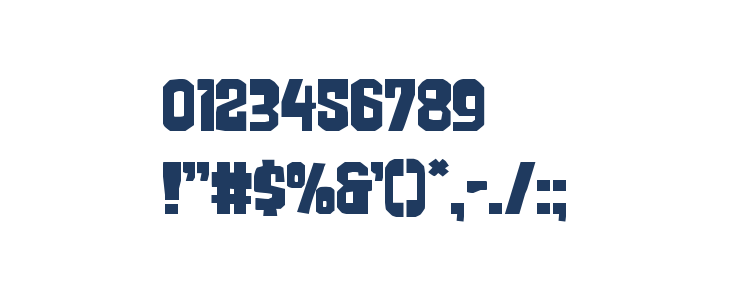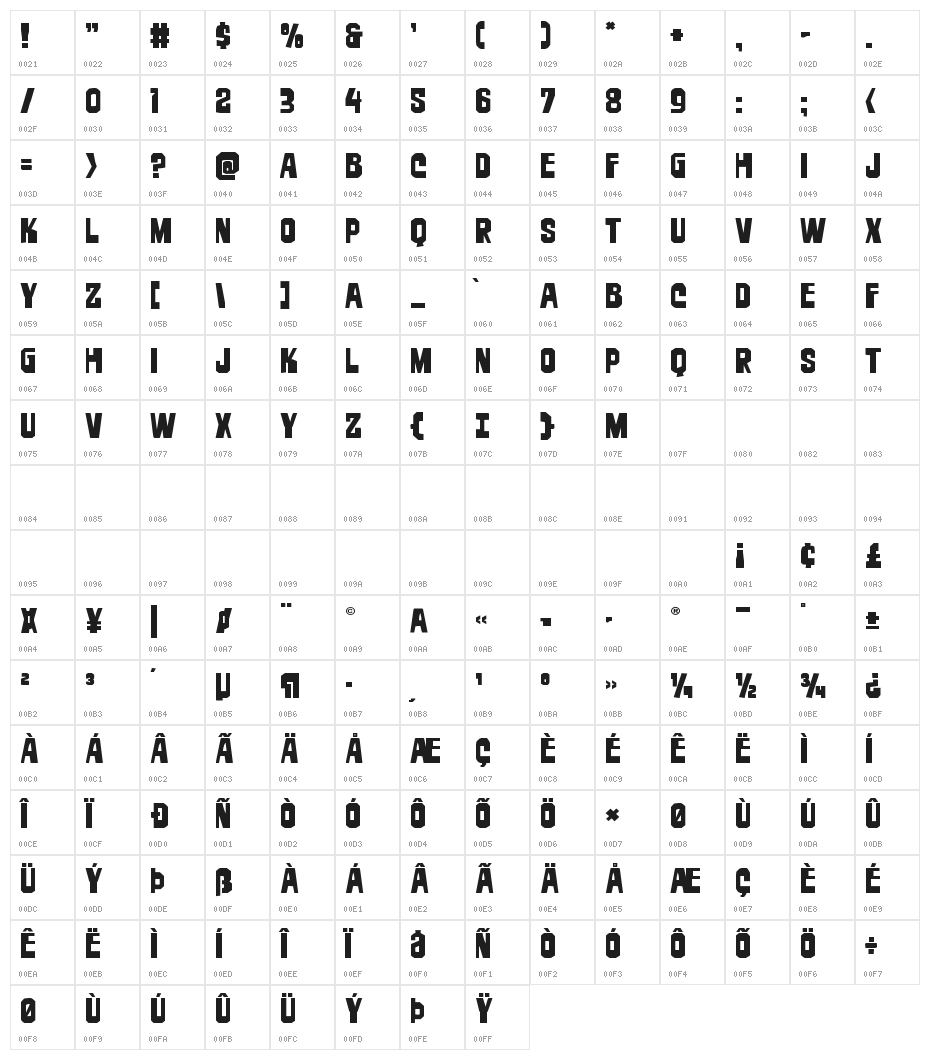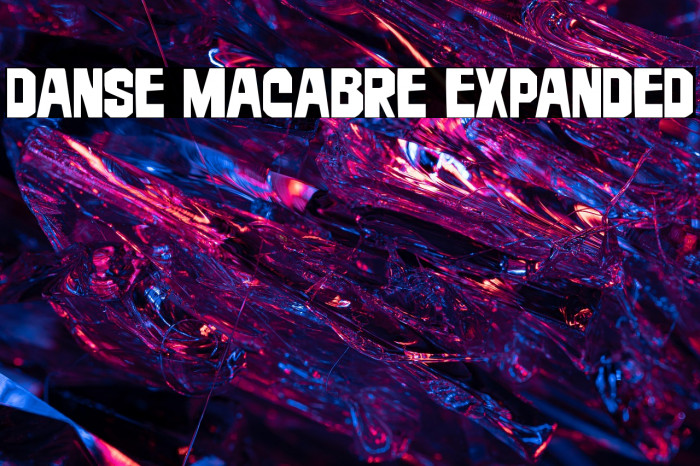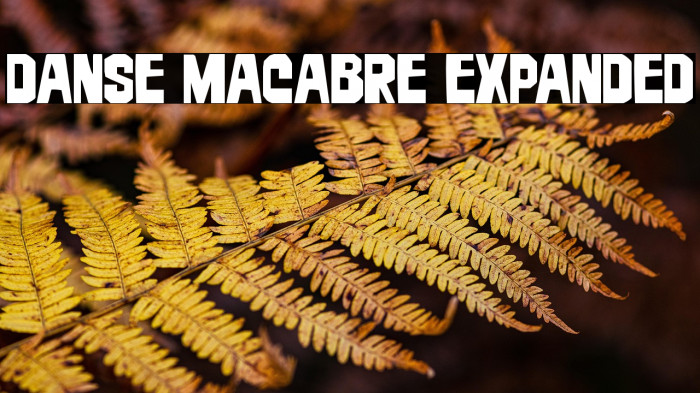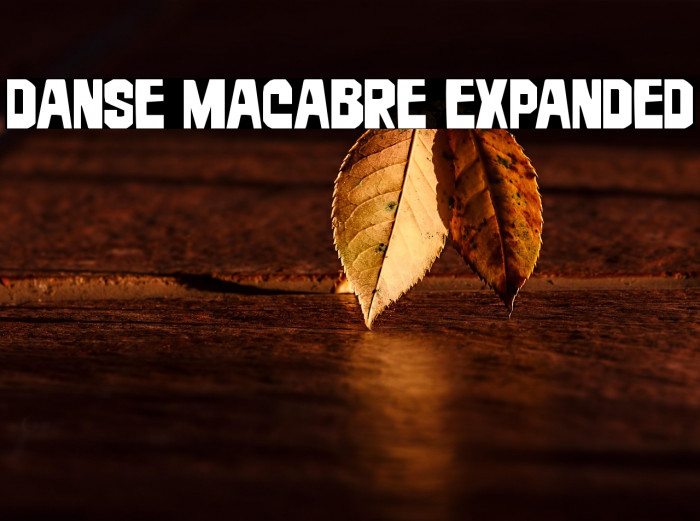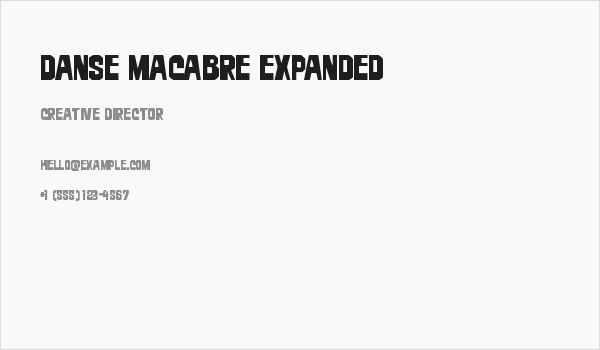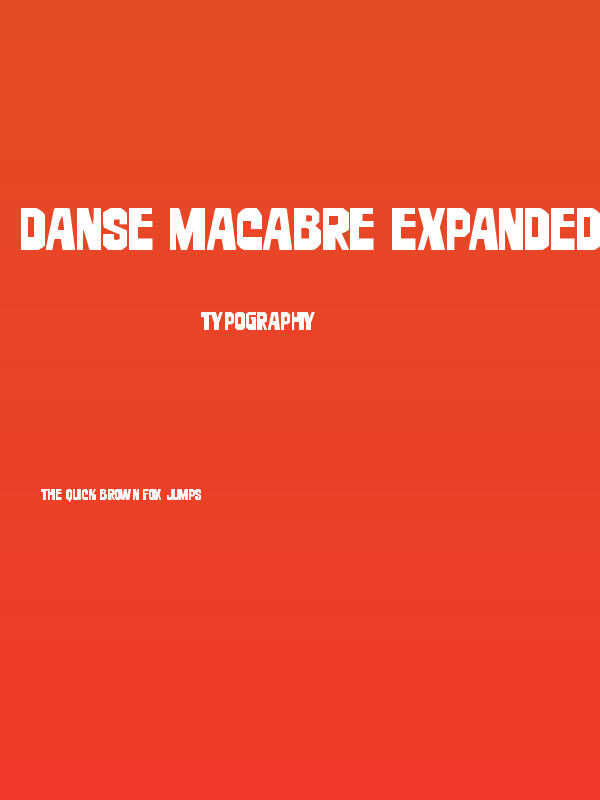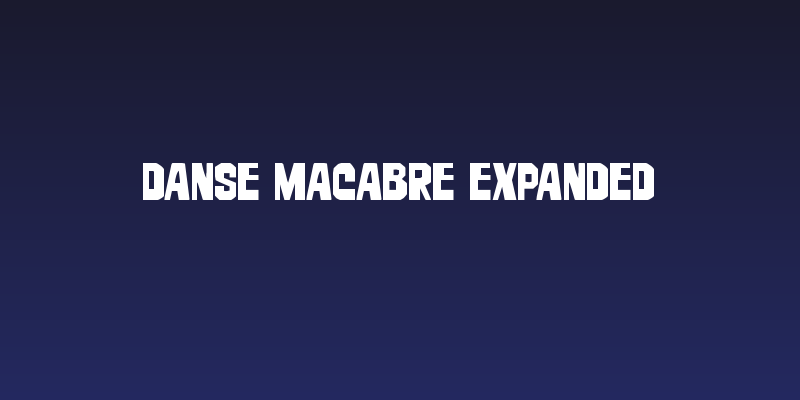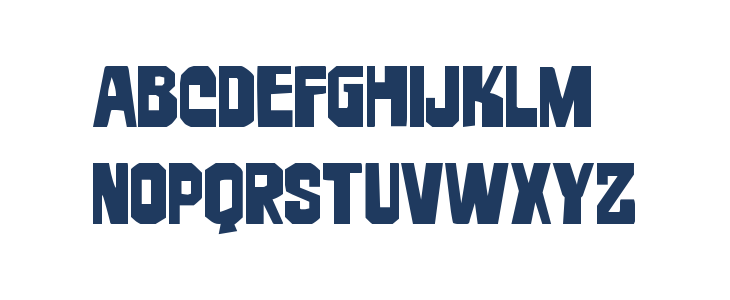
Danse Macabre Expanded Font
Danse Macabre Expanded Description
This font features a bold and striking design with a strong presence. The characters are blocky and geometric, with sharp angles and a solid structure. The uppercase letters are particularly prominent, showcasing a sense of authority and impact. The numbers and special characters maintain the same boldness, ensuring consistency throughout. This font is ideal for making a statement, with its expanded width adding to its commanding appearance. The overall style is modern and decorative, perfect for projects that require a bold and eye-catching typeface.